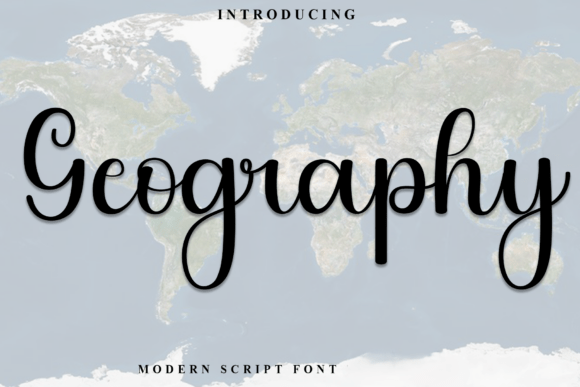
Geography Font: A Casual and Creative Typeface for Your Designs
Are you looking for a font that can add a touch of warmth and friendliness to your designs? Look no further than Geography Font, a casual and creative typeface that is perfect for personal projects, invitations, and social media graphics. In this article, we’ll take a closer look at the Geography Font, its features, and how you can use it to elevate your designs.
What is Geography Font?
Geography Font is a hand-drawn typeface that exudes a relaxed and approachable feel. Its round, playful strokes create a charming and unique aesthetic that is sure to capture the attention of your audience. This font is perfect for designers who want to add a personal touch to their work, whether it’s for a personal project, a client’s invitation, or a social media graphic.
Key Features of Geography Font
- Casual and Creative: Geography Font has a casual and creative vibe that makes it perfect for designs that require a friendly and approachable tone.
- Hand-Drawn Aesthetic: The font’s hand-drawn aesthetic adds a unique and fun touch to any design.
- Multilingual Support: The font supports multiple languages, making it a great choice for designers who work with clients from different parts of the world.
Uses of Geography Font
Geography Font is a versatile typeface that can be used for a variety of design projects, including:
- Personal Projects: Use Geography Font to add a personal touch to your personal projects, such as photo albums, scrapbooks, or journals.
- Invitations: Create beautiful and unique invitations for weddings, birthday parties, or other special occasions.
- Social Media Graphics: Use Geography Font to create eye-catching social media graphics, such as Facebook posts, Instagram stories, or Twitter headers.
- Branding: Geography Font can be used for branding projects, such as logos, business cards, or letterheads.
Benefits of Using Geography Font
Using Geography Font can bring several benefits to your designs, including:
- Unique Aesthetic: Geography Font’s hand-drawn aesthetic adds a unique and fun touch to any design.
- Emotional Connection: The font’s warm and friendly tone can help create an emotional connection with your audience.
- Versatility: Geography Font is a versatile typeface that can be used for a variety of design projects.
- Easy to Read: The font is easy to read, making it perfect for designs that require a clear and concise message.
Tips for Using Geography Font
Here are some tips for using Geography Font effectively in your designs:
- Pair with Other Fonts: Pair Geography Font with other fonts to create a unique and interesting contrast.
- Use for Headings: Use Geography Font for headings and titles to add a touch of personality to your designs.
- Experiment with Colors: Experiment with different colors to find the perfect combination that matches your brand’s tone and style.
- Keep it Simple: Keep your design simple and clean to ensure that the font is the focal point.
Geography Font is a casual and creative typeface that can add a touch of warmth and friendliness to your designs. Its hand-drawn aesthetic, standard PUA Encoded glyphs, and multilingual support make it a great choice for designers who want to create unique and engaging designs. With its versatility, ease of use, and emotional connection, Geography Font is perfect for personal projects, invitations, social media graphics, and branding projects.
- What is Geography Font? Geography Font is a hand-drawn typeface that exudes a relaxed and approachable feel.
- What are the key features of Geography Font? The font’s key features include its casual and creative vibe, hand-drawn aesthetic, standard PUA Encoded glyphs, and multilingual support.
- What are the uses of Geography Font? Geography Font can be used for personal projects, invitations, social media graphics, branding projects, and more.
- What are the benefits of using Geography Font? The benefits of using Geography Font include its unique aesthetic, emotional connection, versatility, and ease of use.